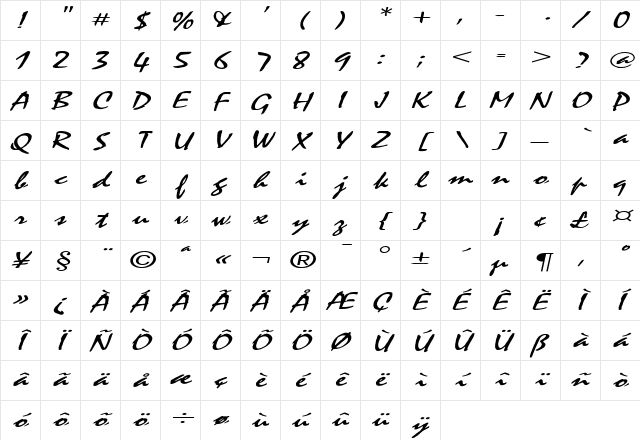
Mystic Extended Italic
Mystic Extended Family
Design Context for Mystic Extended
Mystic Extended is a composed and adaptable typeface that performs quietly and consistently across a wide range of design contexts. The slanted form adds forward momentum and visual energy.
Pro Tip: Use Mystic Extended for emphasis, pull quotes, and subheadings where its slanted energy can add rhythm to the layout.